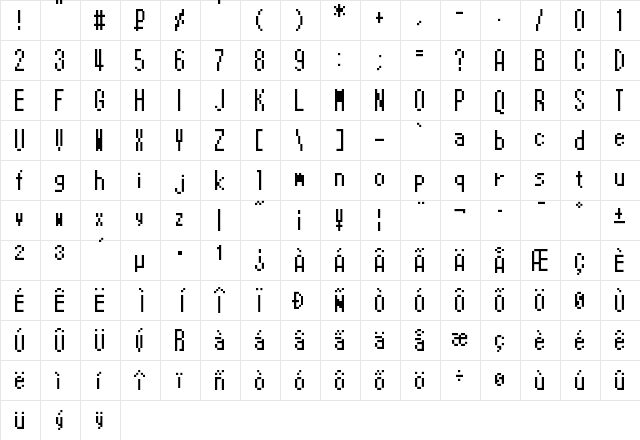
Pokemon X and Y Regular
Design Context for Pokemon X and Y Typeface
Pokemon X and Y offers clean, dependable letterforms without strong stylistic allegiance, making it a practical choice for designers who need flexibility.
Pro Tip: Use Pokemon X and Y in both headline and body roles to test its range before committing to a single application.